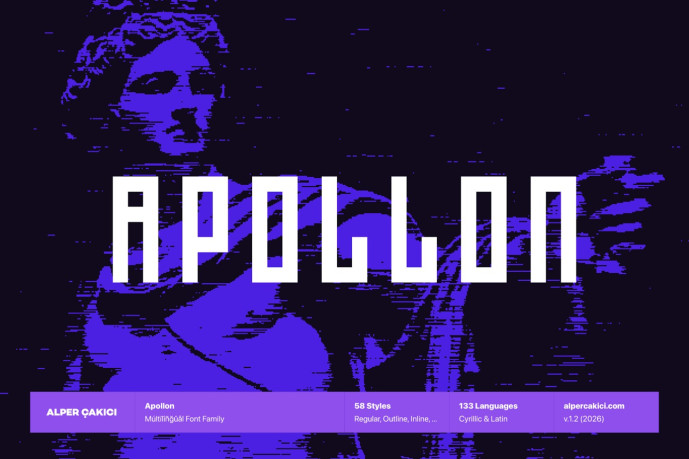
Apollon is a versatile rectangular sans serif typeface designed for bold visual impact and creative flexibility. Built on a structured geometric foundation, it balances sharp precision with expressive stylistic variations, making it suitable for both modern branding and experimental design work.
The family features an extensive range of styles, from clean and minimal cuts like Regular and Circular to highly textured and artistic variants such as Brush, Rough, Pencil, Noise, and Eroded. Inline, Outline, and Rimmed styles add decorative depth, while Rounded and Angular subfamilies provide contrasting moods—from soft and approachable to sharp and assertive.
With a large language support covering over 130 languages, Apollon is built for global use across print and digital media.